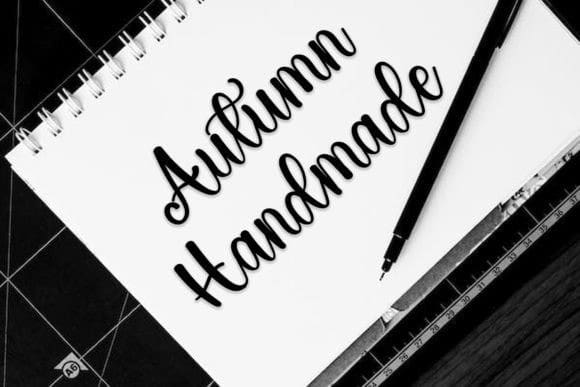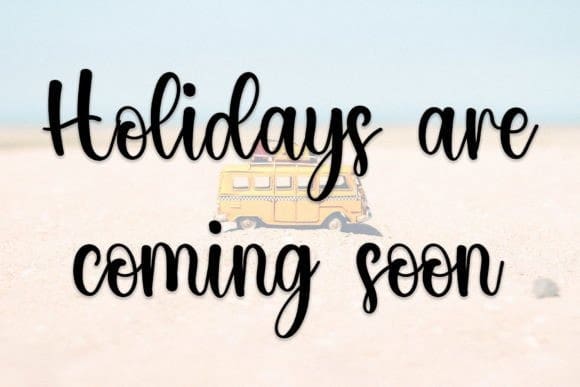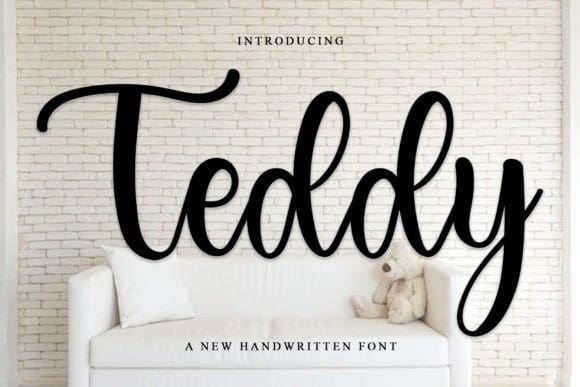
Teddy Script Font
Teddy Script Font is a charming and adorable typeface that captures the lovable and cuddly nature of teddy bears. Its soft curves and gentle letterforms evoke a sense of warmth and nostalgia. Perfect for children’s books, baby shower invitations, cute branding, and more, Teddy Font adds a touch of sweetness and innocence to your designs.